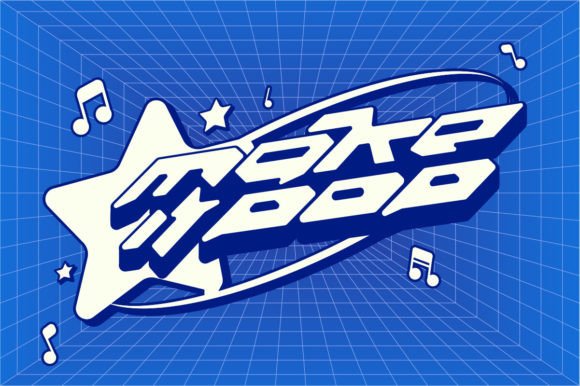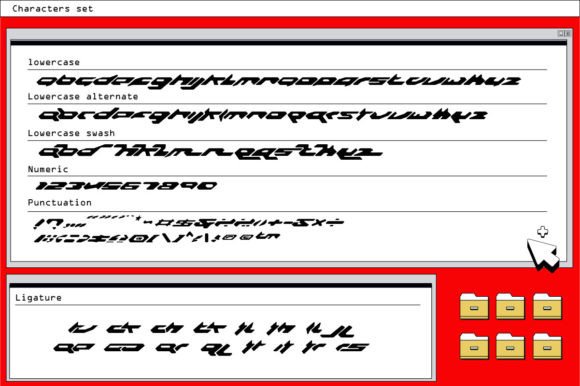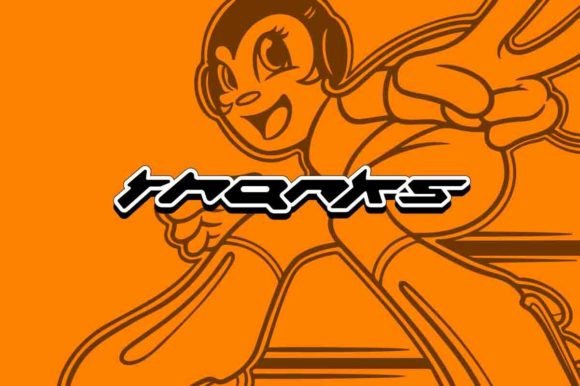
Introducing Frogs Font: The Ultimate Y2K Family Fonts for Designers
Get ready to take a trip down memory lane and dive into the vibrant world of the early 2000s. The Y2K era was a time of bold, colorful, and experimental visuals, and Frogs Font is here to bring that nostalgia back to life. This exciting new font family is perfect for designers and crafters looking to add a touch of futuristic retro flair to their work.
Say Hello to the New Y2K Family Fonts
Frogs Font is more than just a font – it’s an experience. It’s a chance to relive the magic of the early 2000s, an era that was defined by its bold and daring aesthetic. With Frogs Font, you can bring that same energy to your designs and make them stand out from the crowd. Whether you’re working on branding, prints, posters, magazines, headlines, social media, music, or projects, this font is your ultimate go-to.
Exploring the Features of Frogs Font
Frogs Font offers a range of features that make it the perfect choice for designers and crafters. Some of the key features include:
- Italic Regular: This font comes with an italic regular style, giving you a variety of options to play with in your designs.
- Vibrant and Edgy Aesthetics: Frogs Font is all about bold, colorful, and experimental visuals. It’s the perfect way to add a touch of personality to your designs.
- Versatility: Whether you’re working on branding, prints, posters, magazines, headlines, social media, music, or projects, Frogs Font is the perfect choice.
Bringing the Spirit of the Early 2000s into Your Designs
The Y2K era was a time of great creativity and experimentation in design. Frogs Font is here to bring that same spirit to your work. With its bold and colorful aesthetic, this font is perfect for designers and crafters who want to make a statement. Whether you’re looking to create something that’s fun and playful or bold and daring, Frogs Font is the perfect choice.
Why Choose Frogs Font?
So why choose Frogs Font over other fonts on the market? Here are just a few reasons:
- Unique Aesthetic: Frogs Font offers a unique and distinctive aesthetic that’s unlike anything else on the market.
- Versatility: This font is perfect for a wide range of design applications, from branding and prints to social media and music.
- Nostalgia: Frogs Font is a great way to tap into the nostalgia of the early 2000s, making it perfect for designers and crafters who want to create something that’s both retro and modern.
How to Use Frogs Font in Your Designs
Using Frogs Font in your designs is easy. Here are a few tips to get you started:
- Experiment with Different Styles: Frogs Font comes with a range of styles, including italic regular. Experiment with different styles to find the one that works best for your design.
- Play with Color: Frogs Font is all about bold and colorful visuals. Don’t be afraid to play with color and try out different combinations.
- Mix and Match: Frogs Font is perfect for mixing and matching with other fonts and design elements. Try pairing it with other bold and colorful fonts for a unique look.
| Font Name | Frogs Font |
| Author | Dancubs |
Frogs Font is the ultimate Y2K family font for designers and crafters. With its bold and colorful aesthetic, versatility, and nostalgia, it’s the perfect choice for anyone looking to add a touch of futuristic retro flair to their work. Whether you’re working on branding, prints, posters, magazines, headlines, social media, music, or projects, Frogs Font is your ultimate go-to. So why wait? Download Frogs Font today and start creating designs that are truly out of this world!